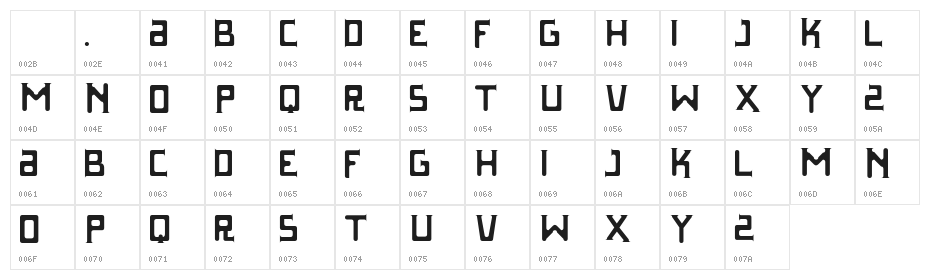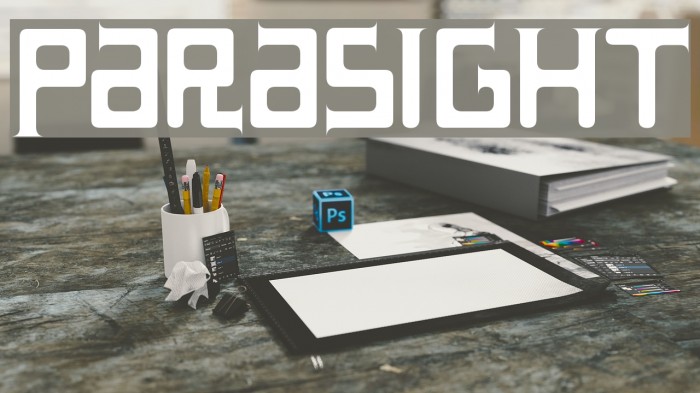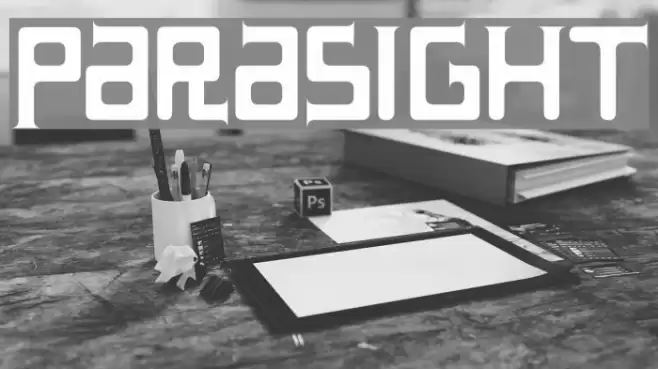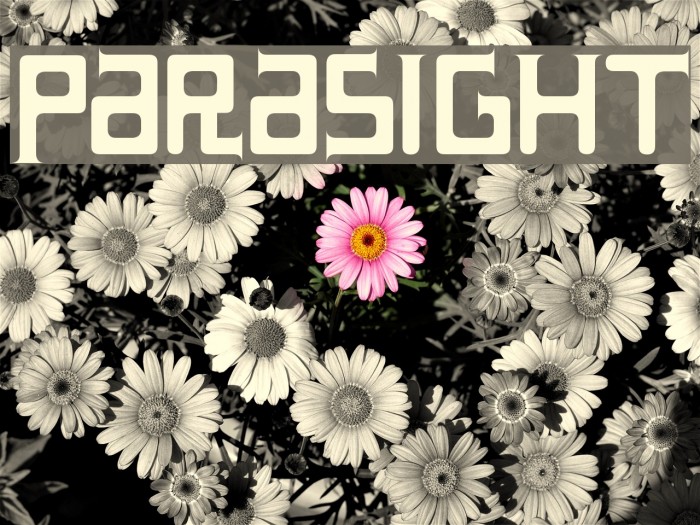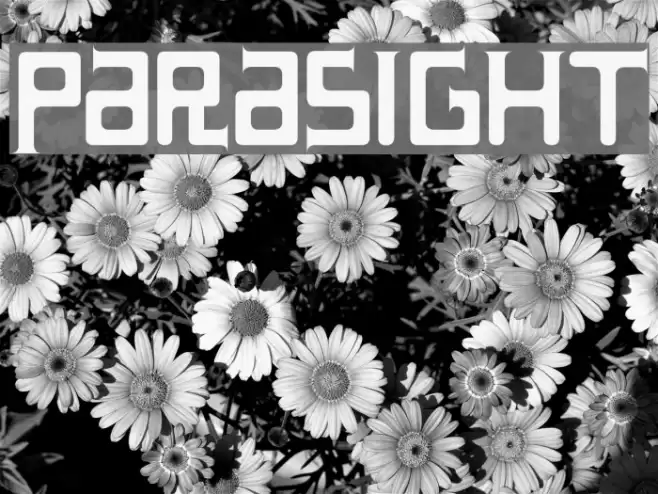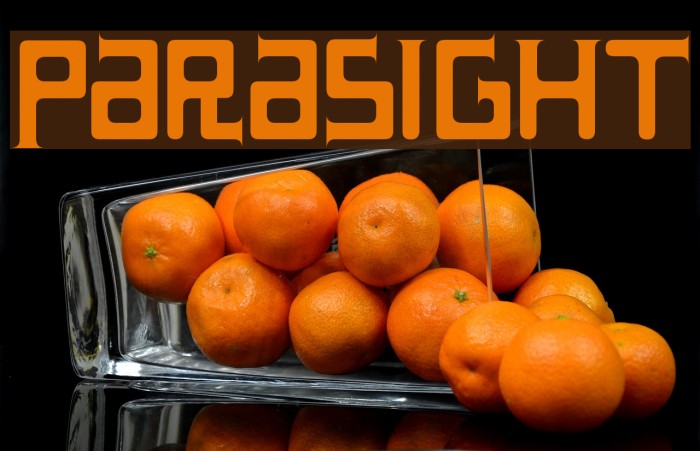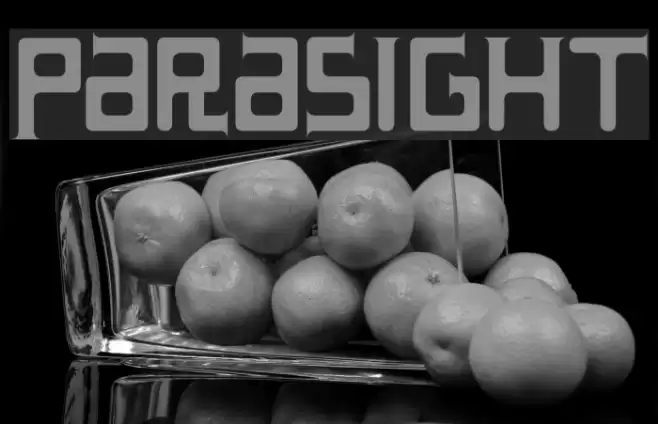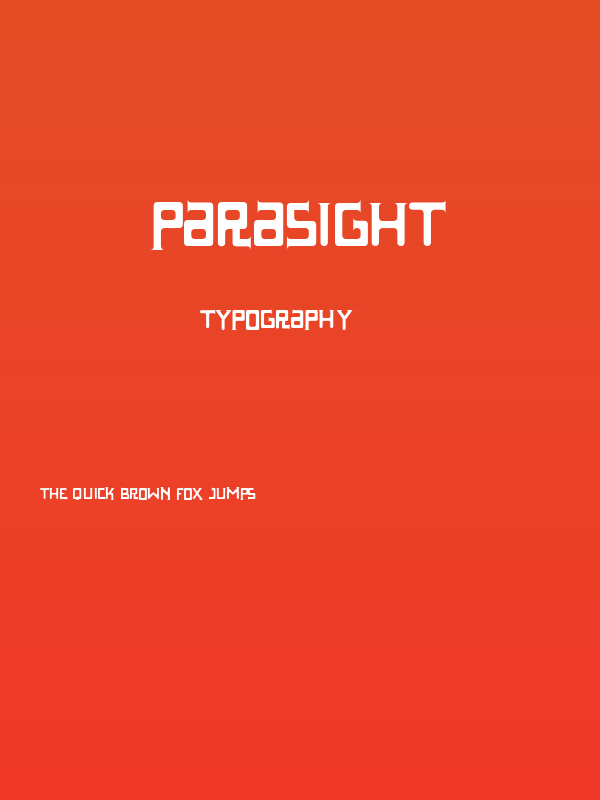
Parasight Font
Parasight Description
This font features a bold and striking design with sharp, angular edges and a geometric structure. The uppercase letters are characterized by their blocky appearance, with unique cutouts that add a modern and edgy feel. The lowercase letters maintain the same boldness, providing a cohesive look throughout. The numbers are similarly styled, with a consistent height and width that align with the overall geometric theme. Special characters are included, matching the bold and angular aesthetic. This font is perfect for projects that require a strong visual impact, such as branding, posters, or headlines.
| Proposed Projects | Ideal for branding, posters, headlines, and any project needing a strong visual impact. |